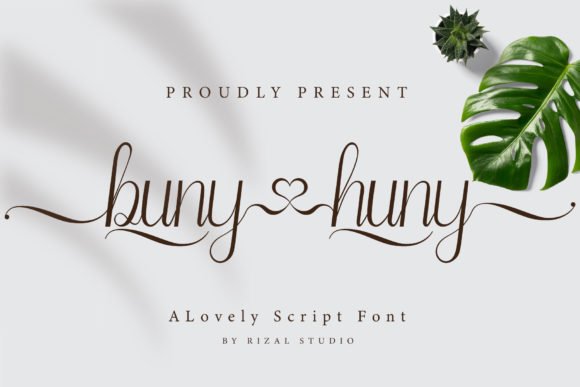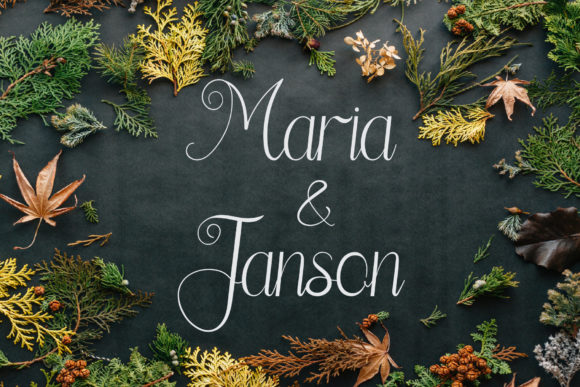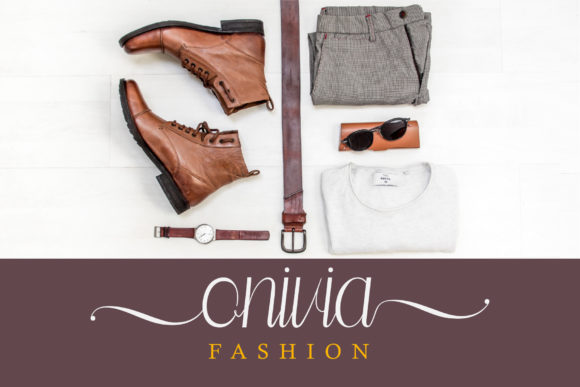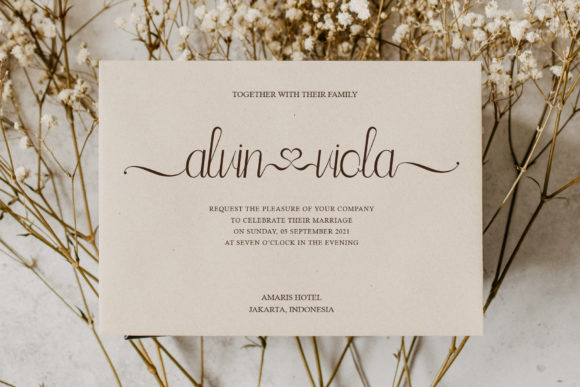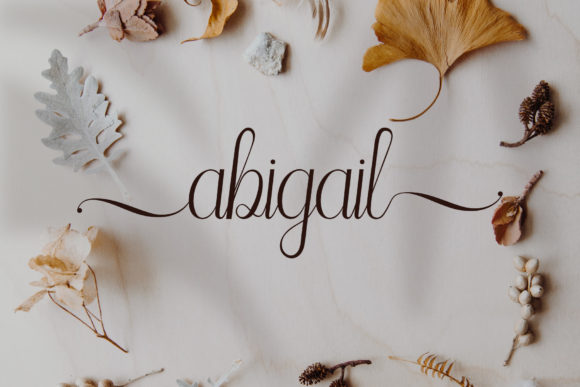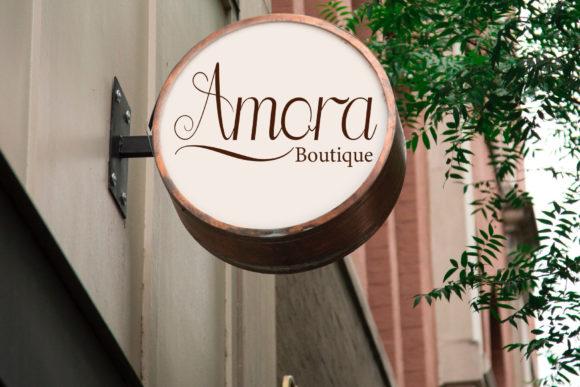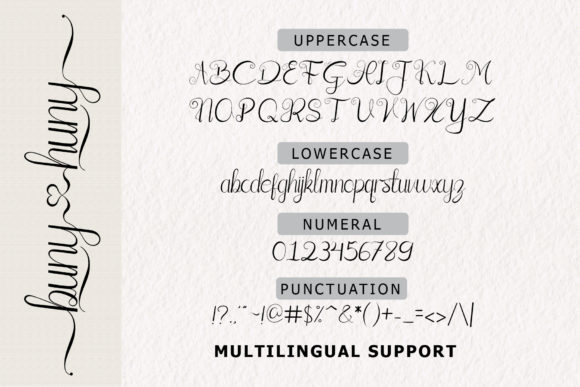
Adding a Personal Touch to Your Designs
Have you ever stared at a blank page, searching for the perfect font to bring your creative vision to life? The struggle is real, but the solution might be simpler than you think. Sometimes, all it takes is the right font to elevate your project from ordinary to extraordinary. For designers and creatives, finding that perfect font can be a game-changer.
Enter the Buny Huny Font, a beautiful and elegant handwritten font that’s designed to add a personal touch to any project. Whether you’re creating wedding invitations, logo designs, or even card games, this font is sure to make your work stand out. With its PUA encoding, accessing all the glyphs and swashes is a breeze, giving you endless possibilities for customization.
Buny Huny Font Key Features
- Font Family: Buny Huny is a unique, hand-drawn font designed for creative projects.
- Unique Characteristics: Features a playful, whimsical design with a mix of rounded and angular shapes, making it ideal for children’s books, magazines, and other creative projects.
- Font Styles: Includes 6 font styles, including Regular, Italic, Bold, Bold Italic, Outline, and Shadow, to provide versatility and flexibility in design.
Buny Huny Font Review
As a designer, I was excited to try out the “Buny Huny Font” and see if it would add some fun and playfulness to my projects. Here’s my honest review:
- The font is incredibly unique and attention-grabbing. It’s perfect for adding a touch of whimsy to your designs.
- The font is highly customizable, allowing you to adjust the size, color, and spacing to fit your specific needs.
- The font files are well-organized and easy to navigate, making it a breeze to work with.
- The font is quite ornate, which can make it difficult to read at smaller sizes. Be careful not to overdo it!
- The font doesn’t come with a wide range of language support, which may be a limitation for designers working on international projects.
- The font can be a bit too bold at times, which may not be suitable for all design applications.
Overall, I’d say that the “Buny Huny Font” is a great choice for designers looking to add some personality to their projects. While it has some limitations, its unique charm and high customizability make it a great addition to any design toolkit. Just be mindful of its potential limitations and use it judiciously!
Use the Buny Huny Font for creative projects that require a playful and whimsical touch, such as children’s books, party invitations, and social media graphics.
Experiment with different font sizes and colors to add visual interest to your designs.
Combine the Buny Huny Font with other creative elements, such as illustrations and graphics, to create unique and eye-catching designs.
Alternatives to “Buny Huny Font” for Designers
Great Vibes is a modern, elegant script font that is ideal for creating a sense of sophistication and refinement. It is perfect for use in wedding invitations, luxury branding, and high-end packaging. Compared to Buny Huny Font, Great Vibes has a more refined and polished look, making it suitable for more formal and upscale projects.
Caviar Dreams Font
Caviar Dreams is a luxurious, cursive font that is perfect for creating a sense of glamour and sophistication. It is ideal for use in high-end branding, wedding invitations, and luxury packaging. Compared to Buny Huny Font, Caviar Dreams has a more dramatic and luxurious feel, making it suitable for projects that require a sense of opulence and refinement.
Q: What is the recommended font size for Buny Huny Font?
The recommended font size for Buny Huny Font varies depending on the intended use and the design software you are using. However, as a general guideline, we recommend using font sizes between 12pt and 24pt for body text and 48pt to 72pt for headings.